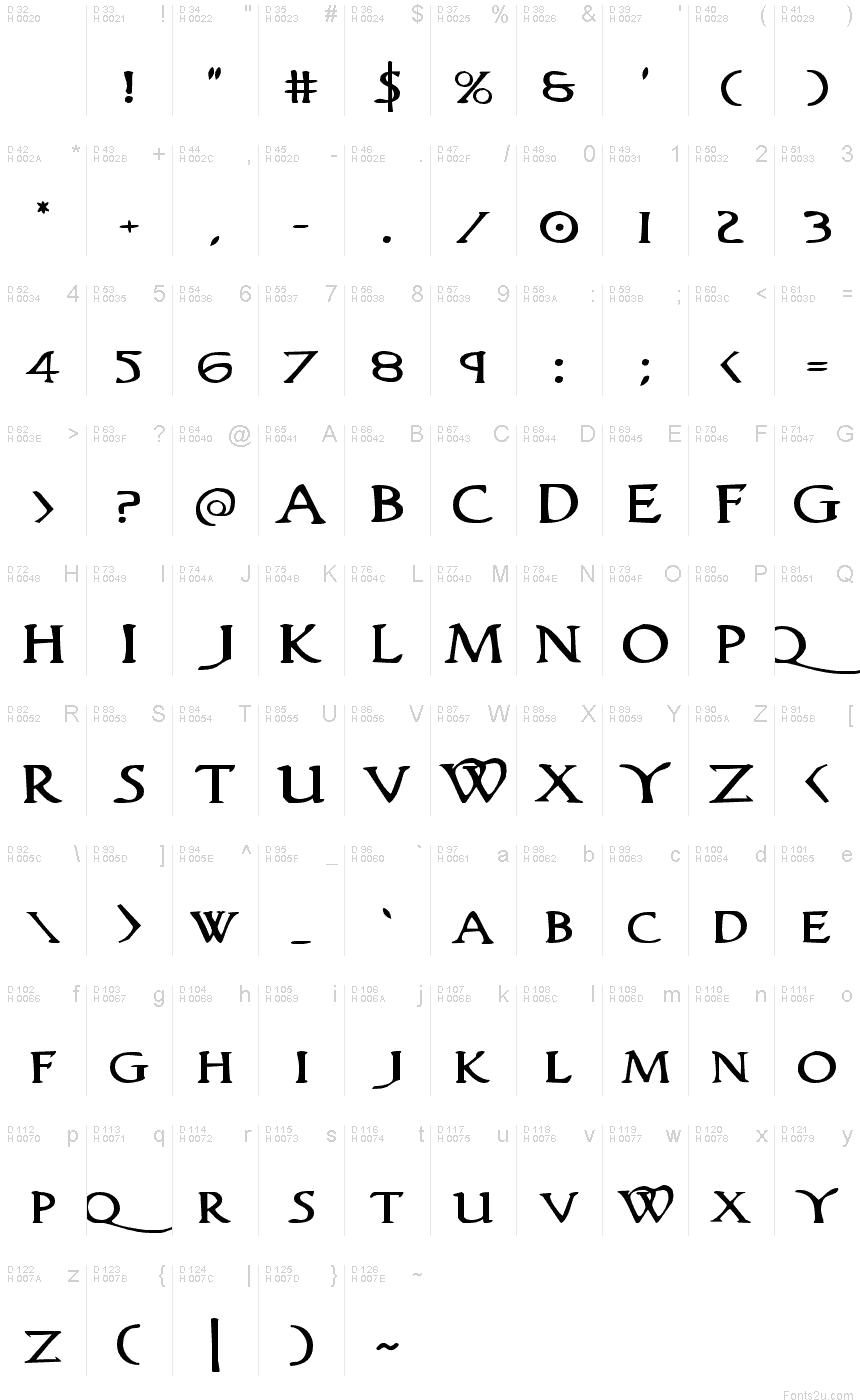
Woodgod Expanded, created by Iconian Fonts in 2012, is a free old-school display serif with broad, theatrical proportions. Uneven contours, blade-like serifs, and strong stroke shifts give the capitals a carved, unruly finish.
For folk-horror film titles, the sharp silhouette suggests something ancient and uneasy. It also suits craft-beer packaging, fantasy games, and heavy-metal merchandise, where the wide letters supply a period accent. On a label or game crest, the lettering can become part of the emblem itself.